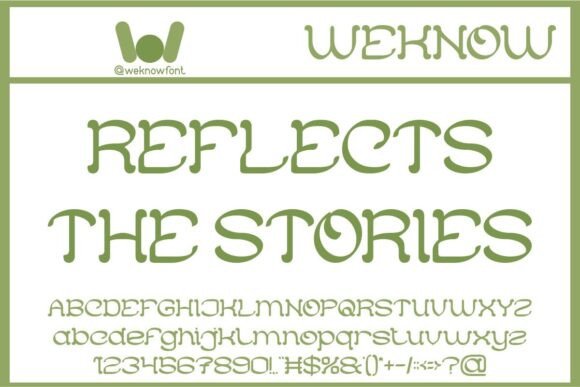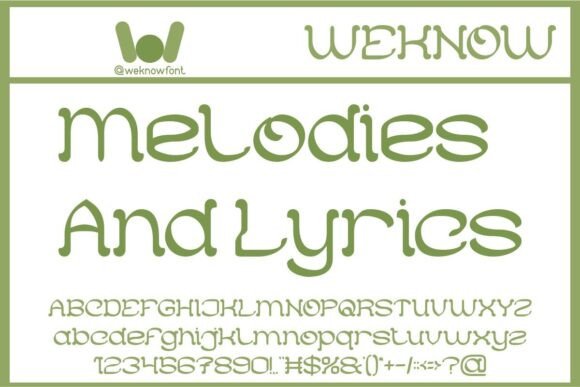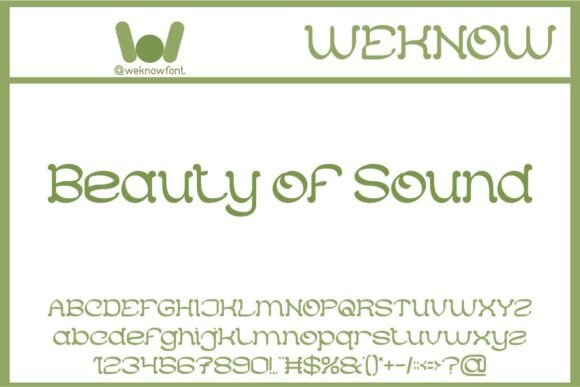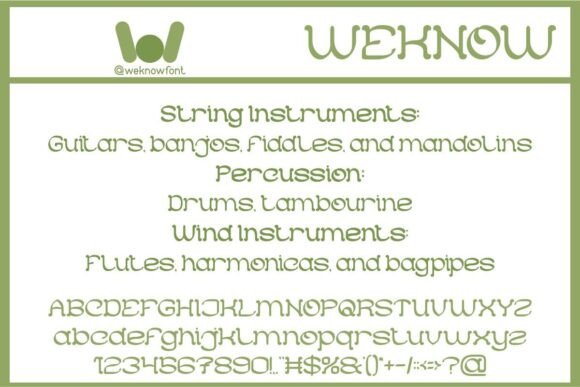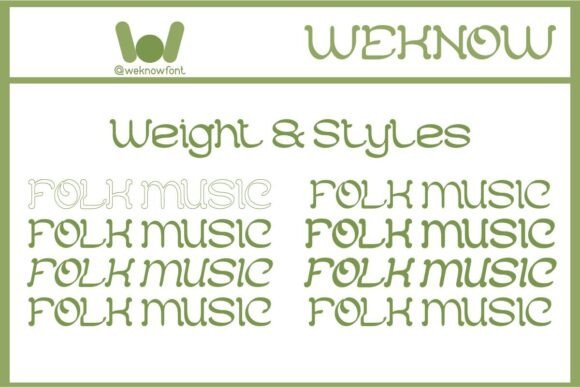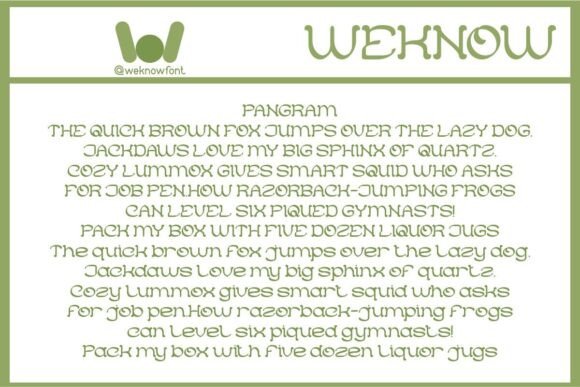
Discover the Charm of “Folk Music” Font: Elevate Your Designs with Whimsy and Character
In the realm of typography, few fonts manage to capture the essence of creativity and playfulness as effectively as “Folk Music.” This artful, diverse, and playful font is designed to infuse your designs with a charismatic touch of whimsy, making it an ideal choice for crafters, designers, and brands looking to stand out. With its unique curl and dynamic style, “Folk Music” lends itself beautifully to a wide range of applications, from logos and headlines to posters, music tracks, and beyond.
The Perfect Fit for Your Brand’s Identity
When it comes to shaping your brand’s identity, the right font can make all the difference. “Folk Music” font offers a distinctive and captivating style that can serve as the crafted signature for any brand. Its dynamic and playful nature makes it particularly suited for the apparel industry, where standing out is crucial. By incorporating “Folk Music” into your branding, you can create a memorable and engaging visual identity that resonates with your audience.
A World of Creative Possibilities
The versatility of “Folk Music” font is one of its most compelling features. Whether you’re working on a poster, music track, movie, game, or magazine, this font can help you render your project with detail and precision. Its unique charm and character make it an excellent choice for a variety of creative endeavors, including:
- Books: Add a touch of whimsy to your book cover or interior design with “Folk Music” font, making your publication stand out on bookshelves.
- Comic Strips and Cartoons: Bring your comic strip or cartoon to life with the playful and dynamic style of “Folk Music” font.
- Music and Movies: Use “Folk Music” font to create captivating posters, soundtracks, or movie titles that capture the essence of your project.
- Games: Incorporate “Folk Music” font into your game’s design to create a memorable and engaging user experience.
- Magazines: Elevate your magazine’s design with “Folk Music” font, making it a standout on newsstands.
Shine on Social Media and Websites
In today’s digital age, having a strong online presence is crucial. “Folk Music” font can help you create eye-catching content for social media platforms like YouTube, Instagram, and your website. Whether you’re designing a video intro, social media graphics, or blog posts, this font can help you capture the attention of your audience and leave a lasting impression.
Why Choose “Folk Music” Font?
So, what sets “Folk Music” font apart from other fonts? Here are a few reasons why designers and crafters are drawn to this captivating font:
- Unique Style: “Folk Music” font boasts a distinctive curl and dynamic style that adds a touch of whimsy to any design.
- Versatility: This font can be used for a wide range of applications, from logos and headlines to posters, music tracks, and more.
- Playful and Engaging: “Folk Music” font is designed to capture the attention of your audience and leave a lasting impression.
- Precision and Detail: This font is woven with detail and precision, ensuring that your designs look professional and polished.
“Folk Music” font is a game-changer for designers and crafters looking to elevate their designs with a charismatic touch of whimsy. Its unique style, versatility, and playful nature make it an ideal choice for a wide range of applications. Whether you’re working on a branding project, creating engaging content for social media, or designing a book or magazine, “Folk Music” font is sure to strike the right chord. So why wait? Discover the charm of “Folk Music” font today and take your designs to the next level!